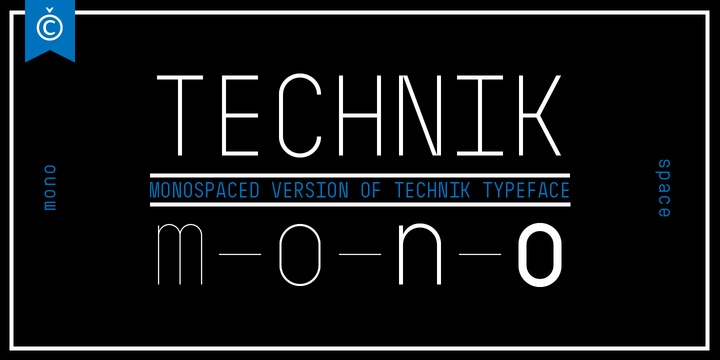
Technik Mono Font
Technik Mono Font is perfect for code editor interfaces, software development documentation, terminal applications, programming tutorial materials, cybersecurity displays, data analysis dashboards, technical specification sheets, and developer tool branding.
What makes Technik Mono Font exciting is its computational precision that embodies the systematic logic and methodical thinking of professional programming and data analysis. The font features monospaced letterforms with uniform character widths and technical geometry that evoke command lines, debugging sessions, and the structured beauty of well-written code. Its distinctive monospace styling and developer-focused design communicate accuracy, logical thinking, and technical expertise, making every message feel optimized for maximum readability and computational efficiency.
The Technik Mono Font family includes regular weight with uppercase and lowercase letters, numerals, punctuation marks, and comprehensive programming symbols. Premium versions often feature multiple weights and coding-specific alternates that enhance the technical, monospace aesthetic perfect for development and data applications.
This precise monospace typeface brings instant technical credibility and programming authenticity to any code-related project. Technik Mono Font Free Download delivers exceptional results for software companies and development teams seeking to communicate technical expertise, coding precision, and systematic thinking to developer communities and technical audiences.
The systematic character of Technik Mono Font makes it particularly valuable for software development firms, coding bootcamps, and tech education platforms. Its excellent readability ensures code examples and technical documentation remain crystal clear while maintaining the distinctive monospace aesthetic that appeals to programmers, data scientists, and technical professionals.
Developer community managers and technical educators appreciate how Technik Mono Font effortlessly conveys coding expertise and systematic precision. The font's uniform spacing and technical details create reliable educational materials that establish trust with audiences seeking accurate programming instruction and professional development guidance.
The versatile technical nature of this typeface extends to fintech applications, blockchain projects, and API documentation where coding authenticity enhances developer adoption. Technik Mono Font Free Download provides creative professionals with an essential tool for developing memorable, code-focused designs that resonate with audiences who embrace programming excellence, systematic thinking, and the logical beauty of well-structured code in today's software-driven world.